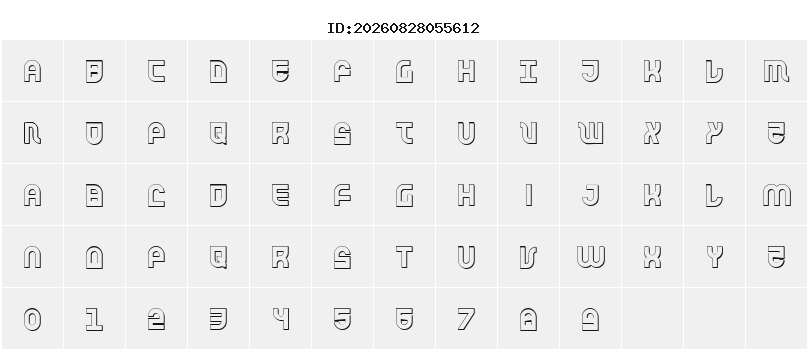
• Font Name: Trek Trooper 3D
About Trek Trooper 3D.ttf
Trek Trooper 3D.ttf is a modern, elegant sans-serif font designed for ultimate readability and visual harmony. Perfect for branding, headlines, web design, and print materials.